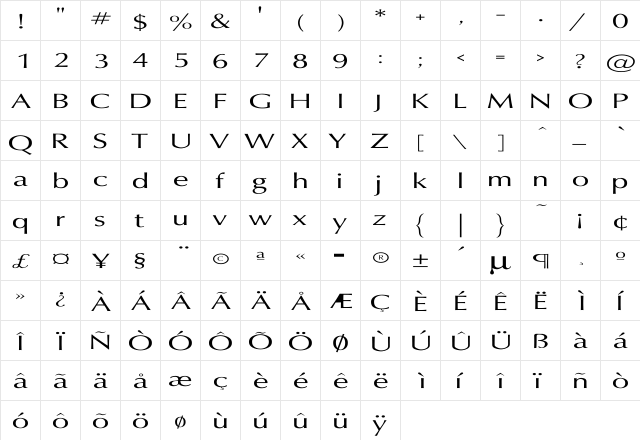
Oxford Ex Regular Font Preview
Oxford Ex Regular
Oxford Ex Regular Font Details
Design Context for Oxford Ex Typeface
Oxford Ex is a composed and adaptable typeface that performs quietly and consistently across a wide range of design contexts.